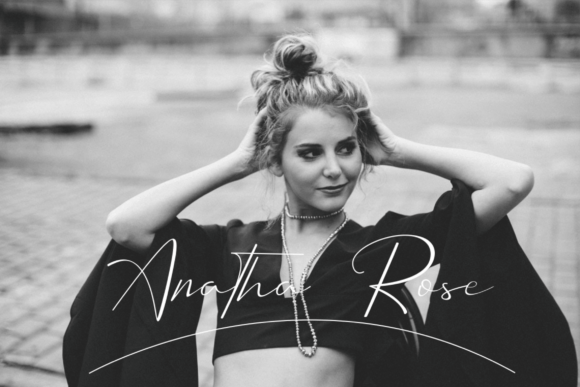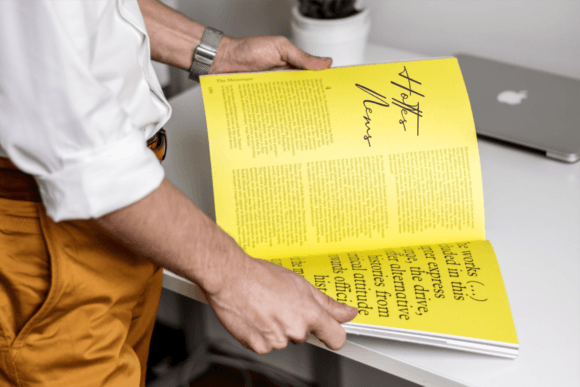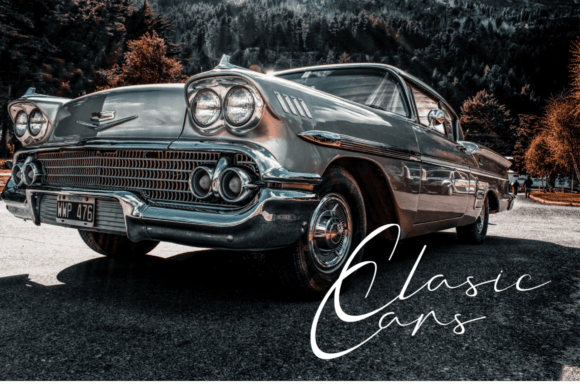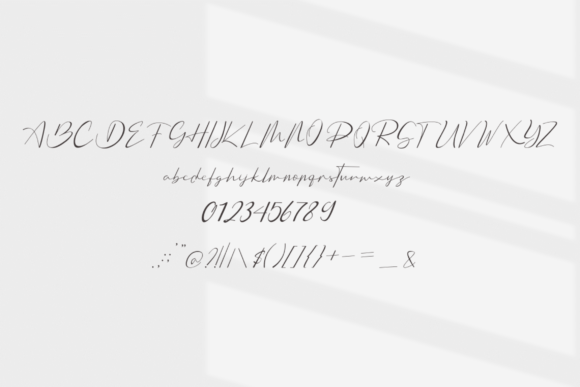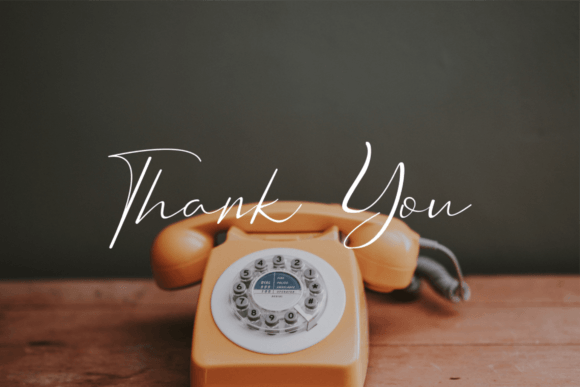
Introduction to Nartofu Font
Nartofu is a delicate and elegant handwritten font.
Its distinct and well-balanced letters make this font a masterpiece Fall in love with its incredibly versatile style and use it to create spectacular designs.
Key Features of Nartofu Font